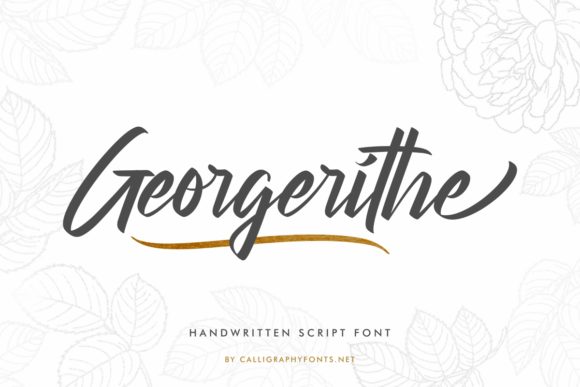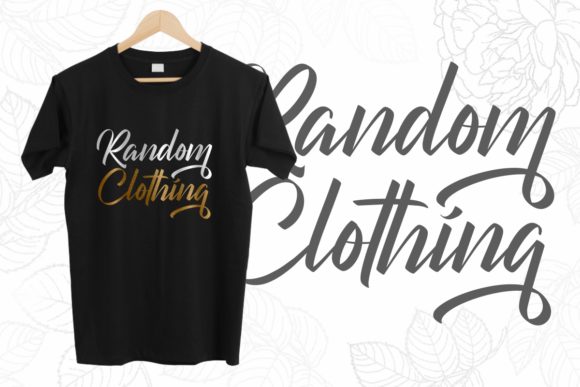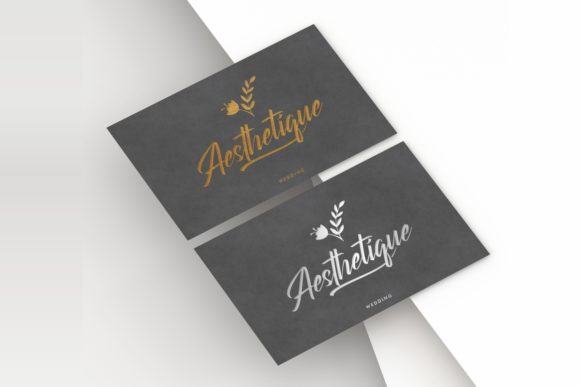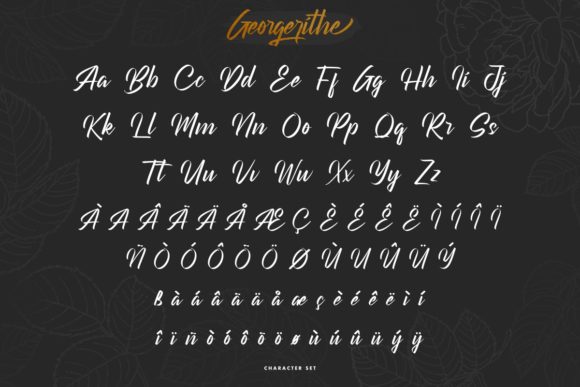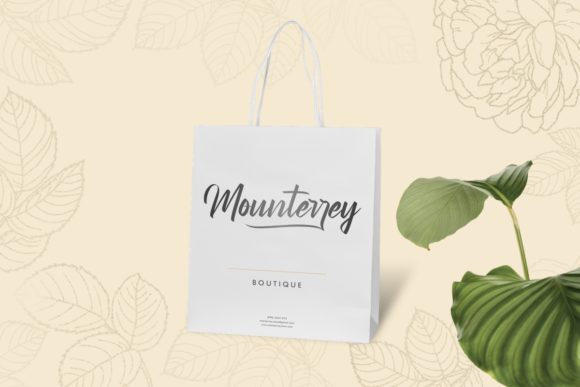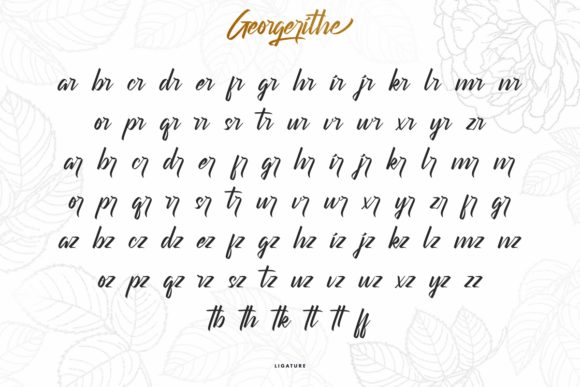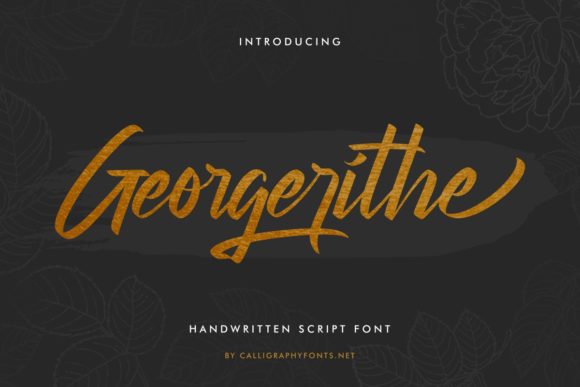
The Elusive Font: A Designer’s Quest for the Perfect Handwritten Style
I still remember the frustration of working on a project, hours spent searching for the ideal font to capture the essence of my design. My client wanted something adventurous, authentic, and luxurious – a tall order! That’s when I stumbled upon **Georgerithe**, a modern and luxurious handwritten font that changed the game. In this article, I’ll share my experience with Georgerithe, its features, and how to make the most of it in your designs.
An Honest Review of Georgerithe
- ✨ Modern and Luxurious Feel: Georgerithe brings a touch of sophistication to any design, making it perfect for high-end projects.
- ✅ PUA Encoded: The font’s PUA encoding means easy access to all glyphs and swashes, giving you creative freedom.
- 🌈 Versatile: From adventurous to elegant, Georgerithe adapts to various design styles and themes.
While Georgerithe is an excellent font, there are a few things to keep in mind:
- ⚠️ Glyph Overload: With so many glyphs and swashes available, it’s easy to get overwhelmed. Take some time to explore the font’s features.
- 🤔 Pairing Challenges: As with any script font, finding the perfect pairing can be tricky. Experiment with different combinations to find the ideal match.
The Designer Inspiration Behind Georgerithe
While the true story behind Georgerithe’s creation remains a mystery, it’s easy to imagine a designer with a passion for luxury and adventure crafting this font. Perhaps they drew inspiration from vintage travel posters, elegant typography, and the great outdoors. Whatever the motivation, Georgerithe is a testament to the power of creative vision.
Q: What is PUA encoding, and how does it benefit font users?
PUA (Private Use Area) encoding allows font creators to include additional characters, glyphs, and swashes, making the font more versatile and user-friendly.